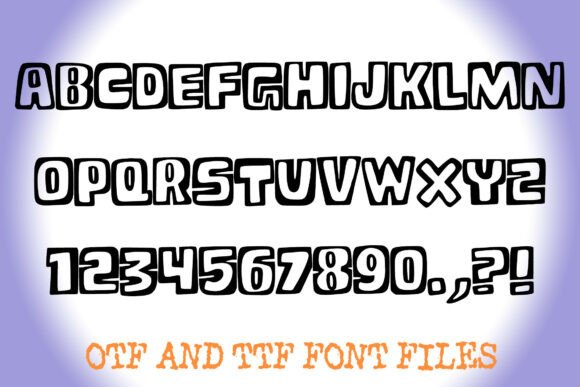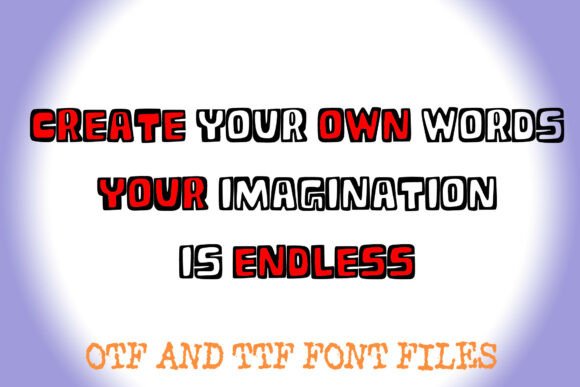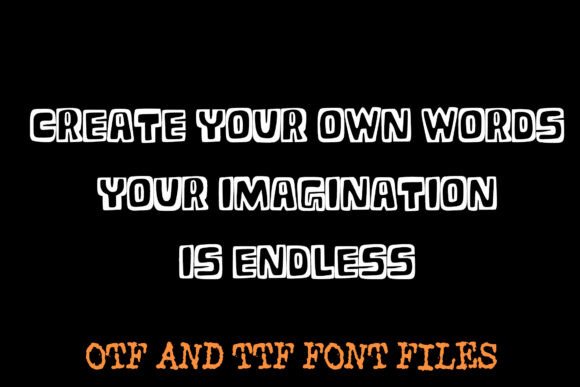
Introducing the Chunky Comic Block Font: A Bold and Playful Typeface for Fun Designs
Are you looking for a font that can add a dash of fun and playfulness to your designs? Look no further than the Chunky Comic Block Font! This bold and cheerful typeface is perfect for creating eye-catching designs that are sure to grab attention. With its chunky block letters and comic-inspired style, the Chunky Comic Block Font is ideal for a wide range of projects, from children’s designs to comic book titles, posters, logos, and more.
What Makes the Chunky Comic Block Font So Special?
The Chunky Comic Block Font is a unique and creative typeface that is designed to add a touch of whimsy and fun to any project. Its thick outlines and bold shapes make it perfect for creating designs that stand out, while its comic-inspired style gives it a playful and quirky vibe. Whether you’re designing for print or digital use, this font is sure to deliver a fun and bold look every time.
Key Features of the Chunky Comic Block Font
- Chunky Block Letters: The Chunky Comic Block Font features thick, block-style letters that are perfect for creating bold and eye-catching designs.
- Comic-Inspired Style: The font’s comic-inspired style gives it a playful and quirky vibe that’s perfect for fun and creative designs.
- Uppercase Letters, Numbers, and Punctuation: The Chunky Comic Block Font includes uppercase letters, numbers, and punctuation, making it a versatile typeface that can be used for a wide range of projects.
The Chunky Comic Block Font is a versatile typeface that can be used for a wide range of projects, including:
- Children’s Designs: The font’s playful and fun style makes it perfect for children’s designs, such as kids’ party invitations, children’s book titles, and educational materials.
- Comic Book Titles: The font’s comic-inspired style makes it perfect for comic book titles, graphic novels, and other comic-style designs.
- Posters and Flyers: The font’s bold and eye-catching style makes it perfect for creating posters and flyers that grab attention.
- Logos and Branding: The font’s unique and creative style makes it perfect for creating logos and branding materials that stand out.
- Invitations and Stationery: The font’s playful and fun style makes it perfect for creating invitations, stationery, and other paper crafts.
- Stickers and Scrapbooking: The font’s bold and colorful style makes it perfect for creating stickers, scrapbooking pages, and other craft projects.
In conclusion, the Chunky Comic Block Font is a bold and playful typeface that’s perfect for fun and eye-catching designs. With its chunky block letters and comic-inspired style, this font adds a cheerful, quirky, and creative vibe to any project. Whether you’re designing for print or digital use, this font is sure to deliver a fun and bold look every time. So why wait? Download the Chunky Comic Block Font today and bring energy and creativity to your projects!